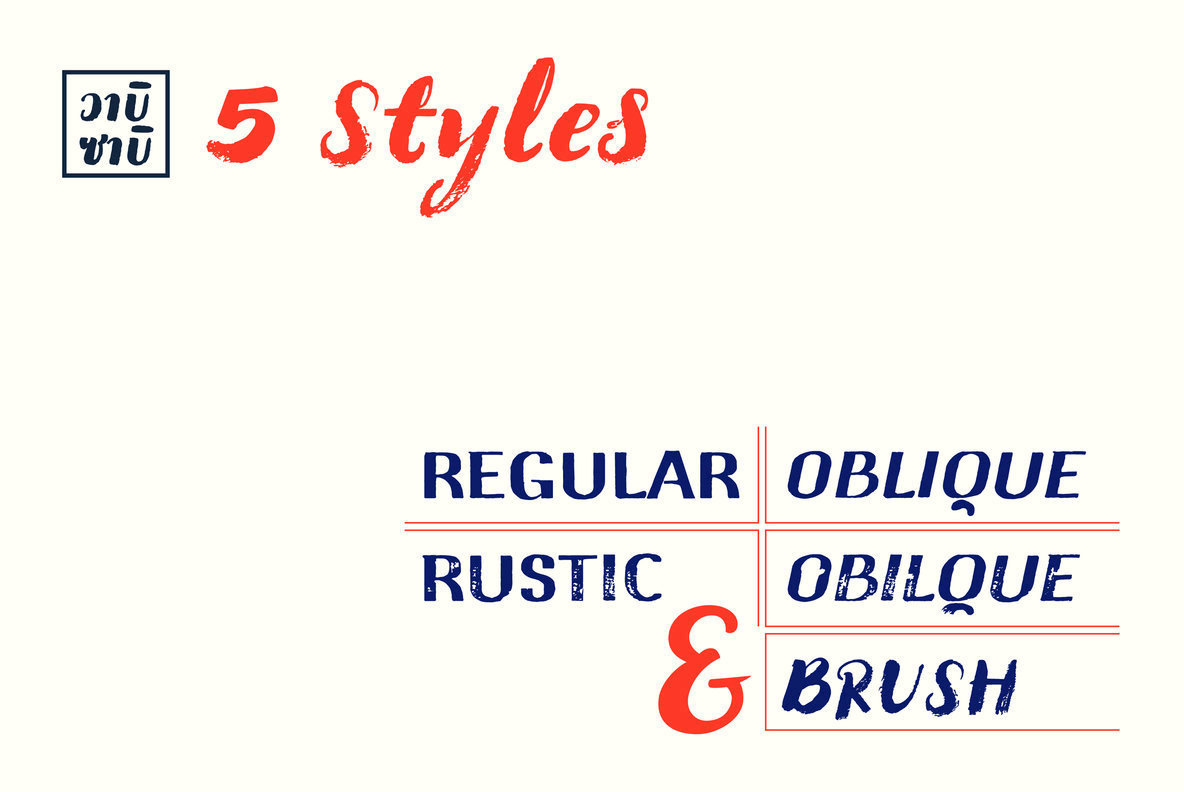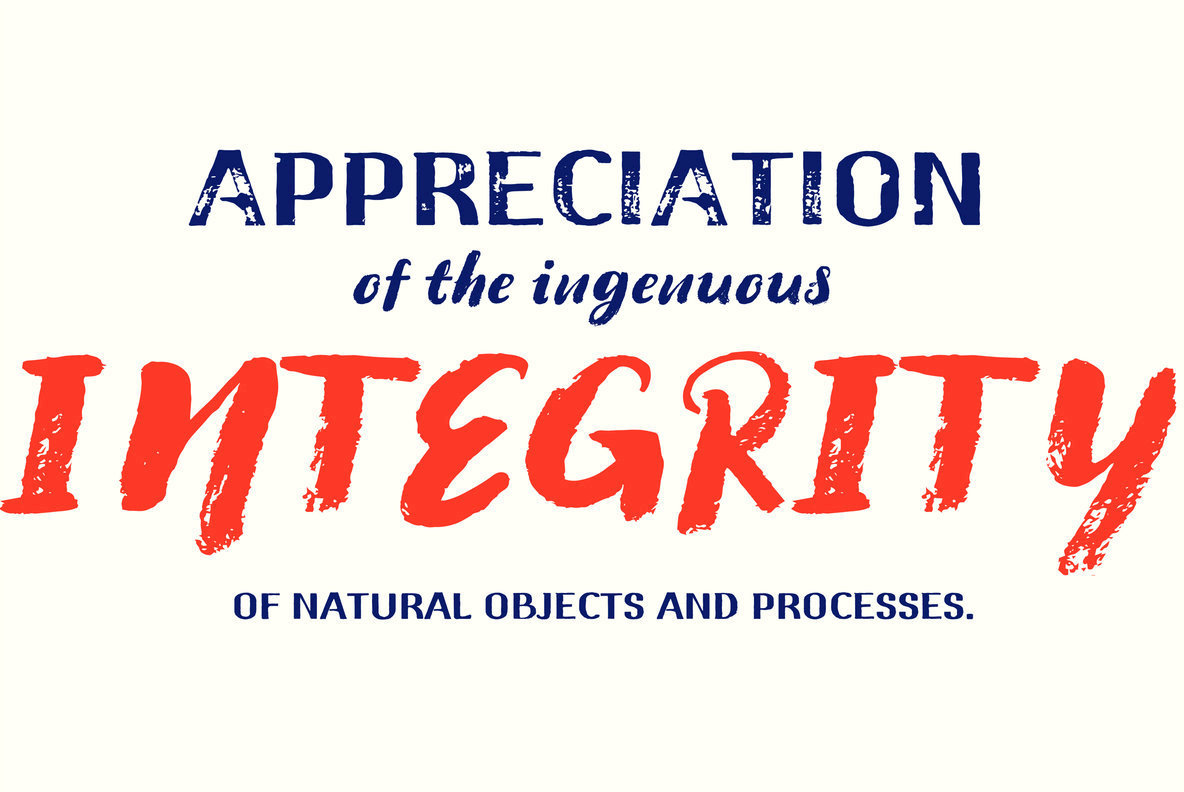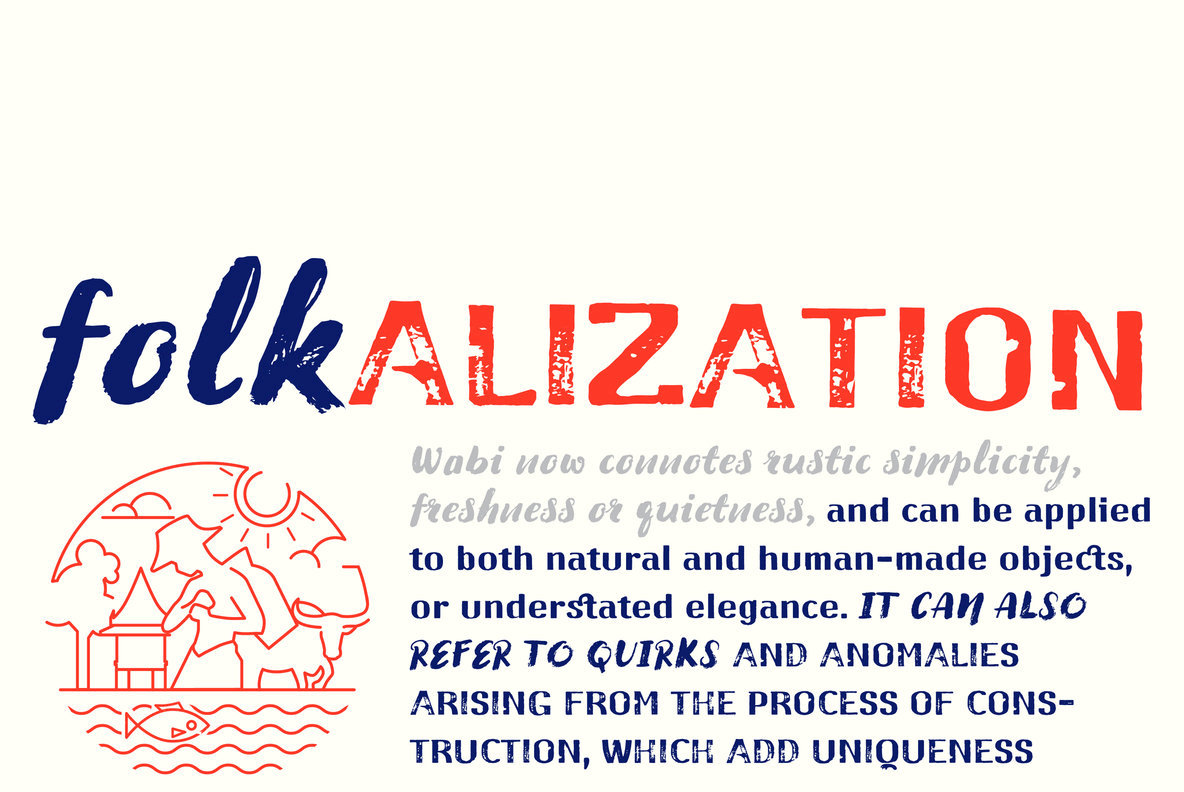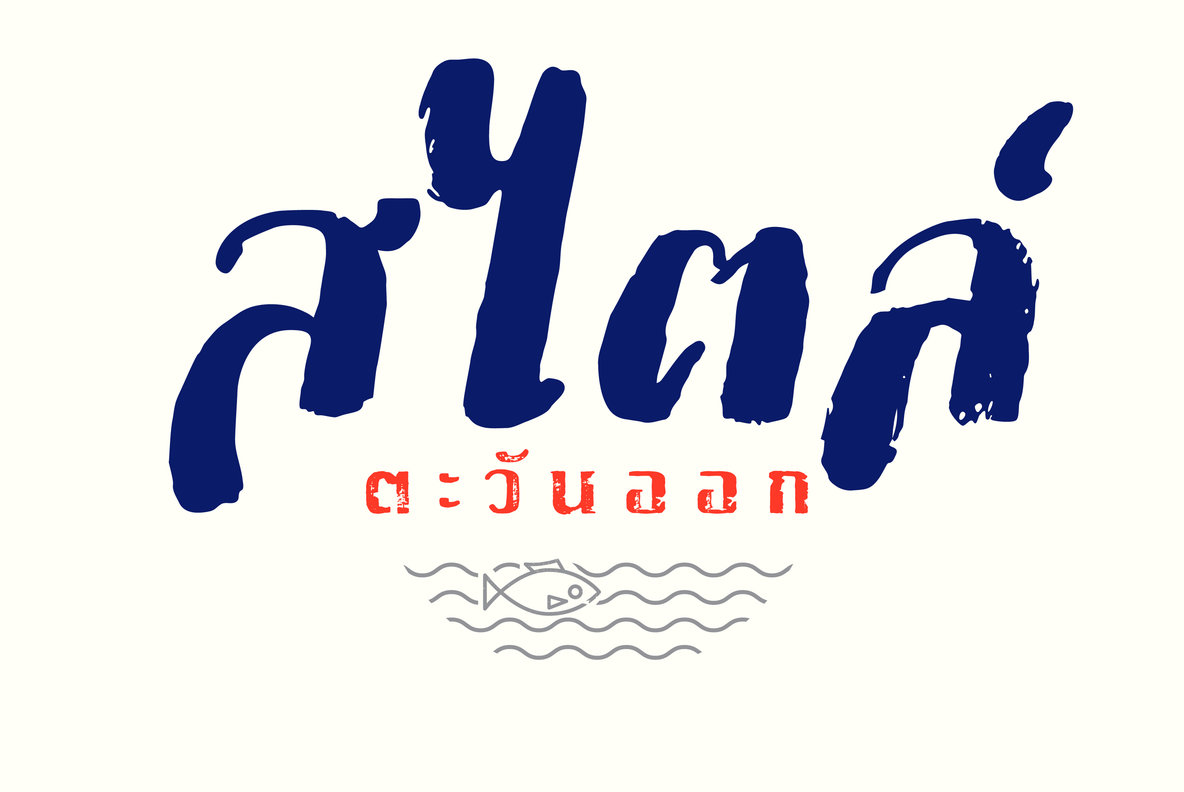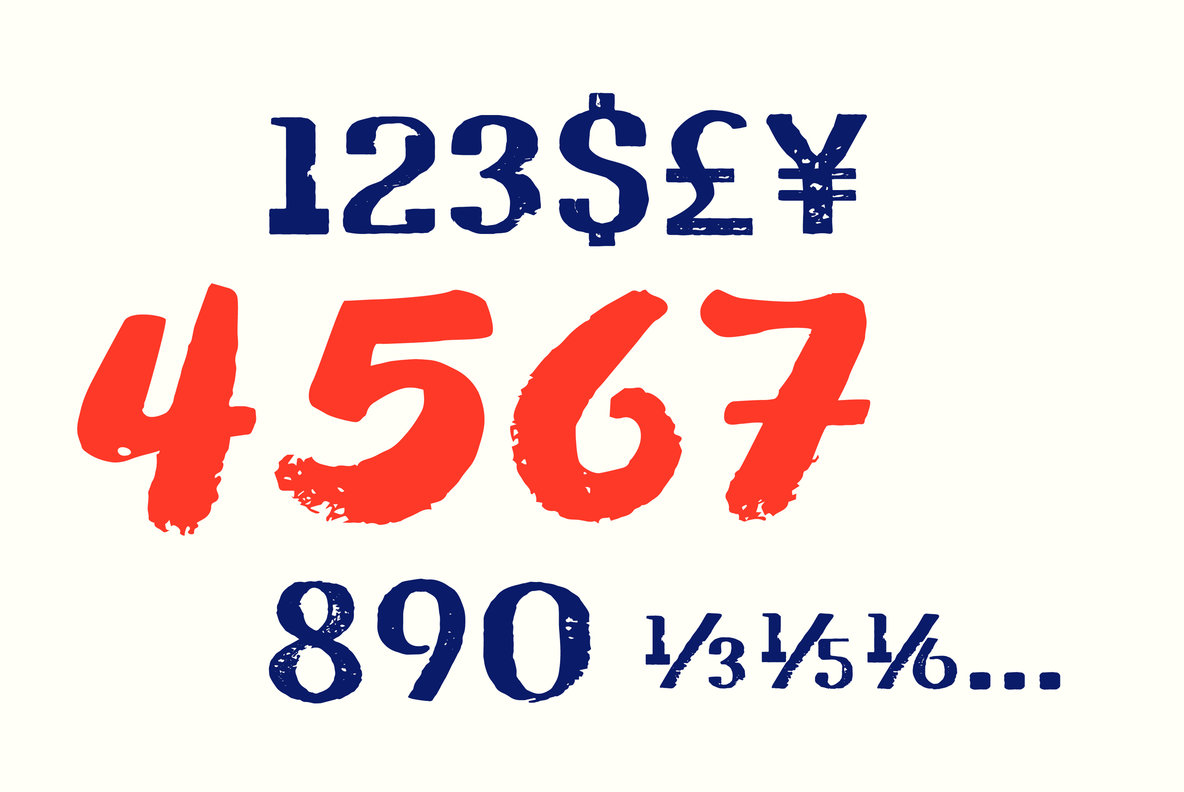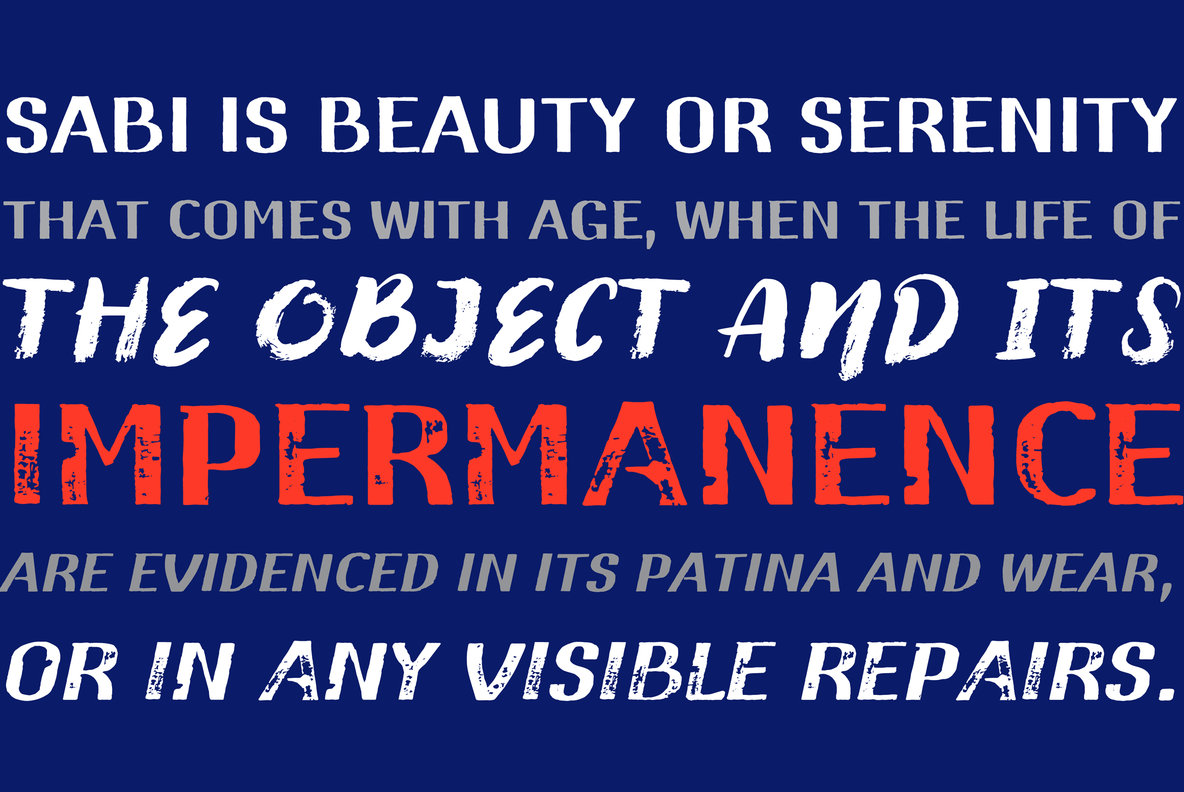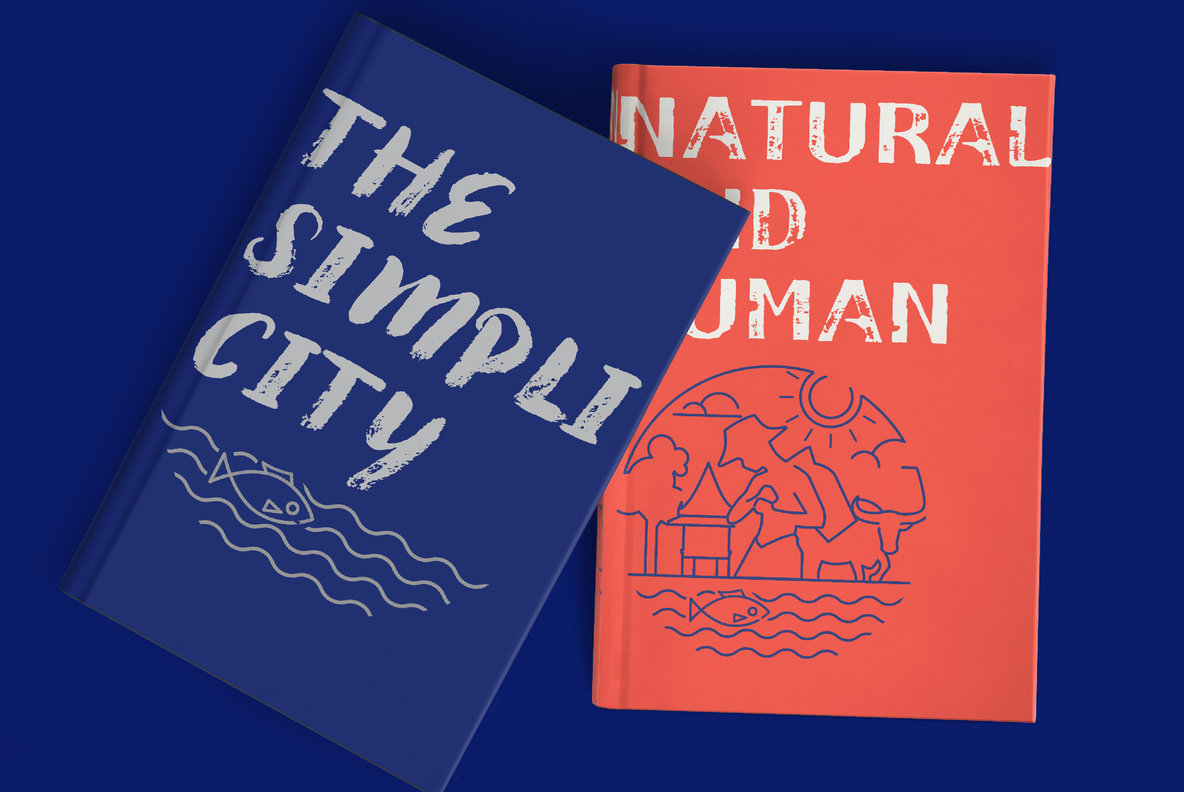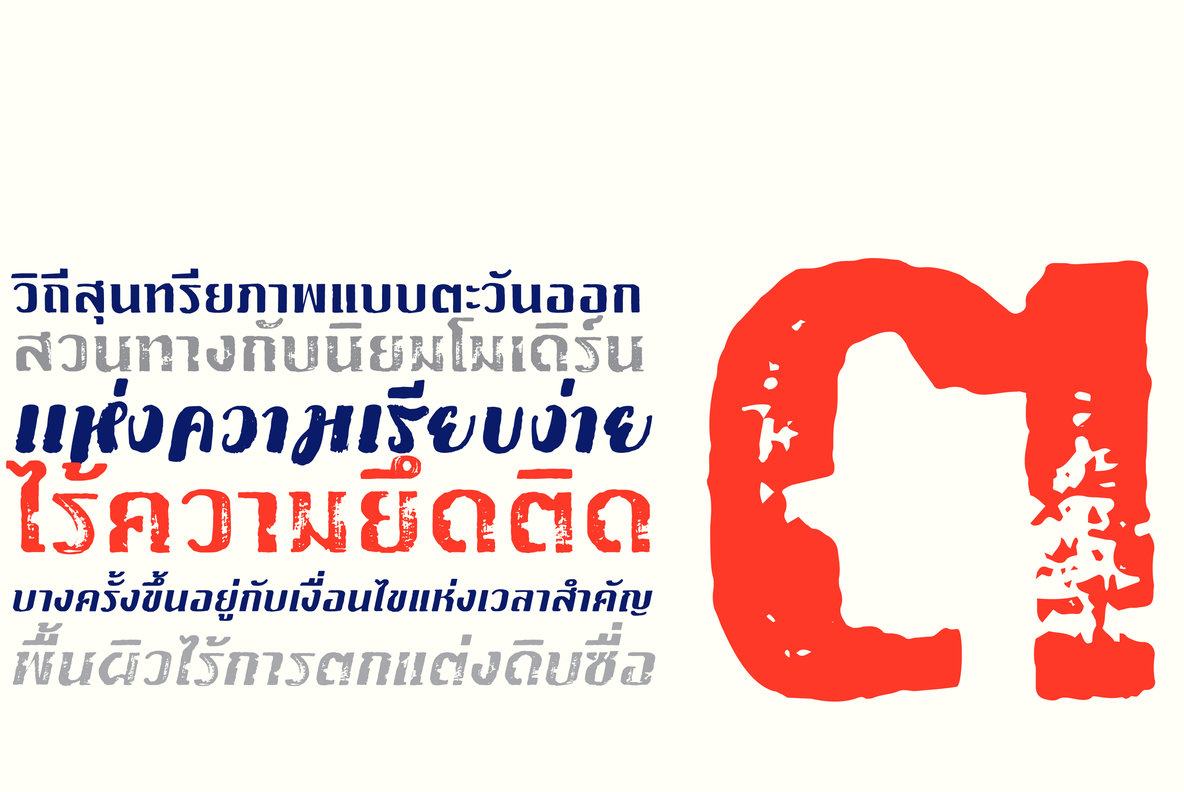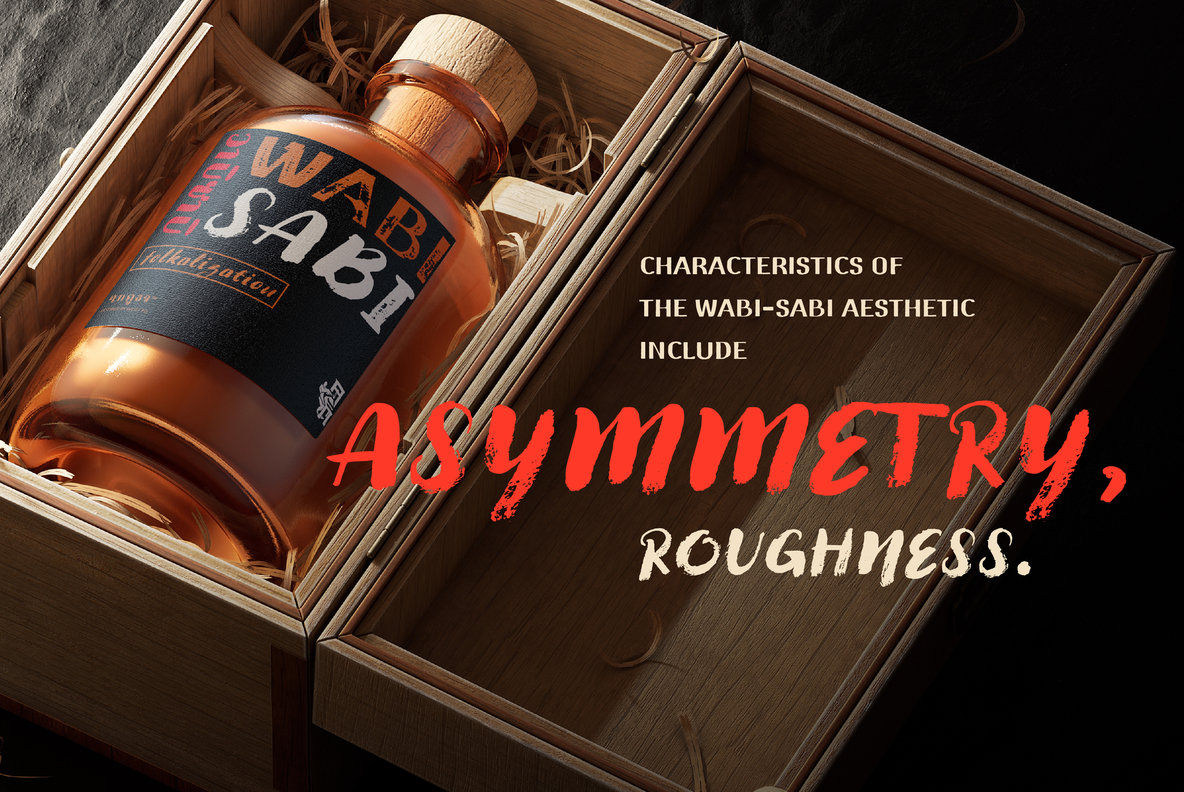
Wabi Sabi Font
WABI SABI
WABI SABI Oblique
WABI SABI Brush
WABI SABI Rustic
WABI SABI Rustic Oblique
Inspired by the age-old Japanese aesthetic of beauty in imperfection, Wabi Sabi stands as a distinctive serif typeface that fuses innocence with power. Crafted with the expressive strokes of marker and waterbrush, this typeface presents a textured surface rife with character and complementary rough contours. Whether you are designing bold posters or expansive book layouts, Wabi Sabi lends an unparalleled originality to your creative suite. Embrace the beauty of the unfinished and the irregular with Wabi Sabi, and infuse every project with its organic charm.Wabi Sabi: Effortless Style with Organic Texture